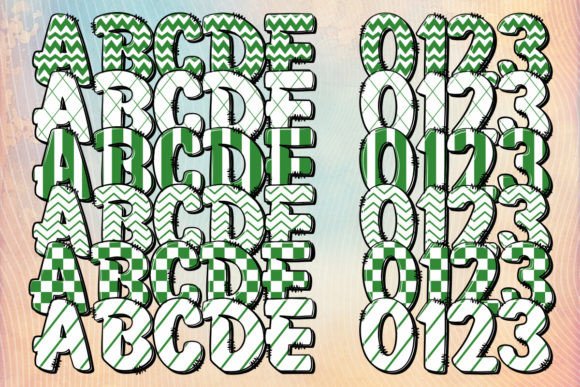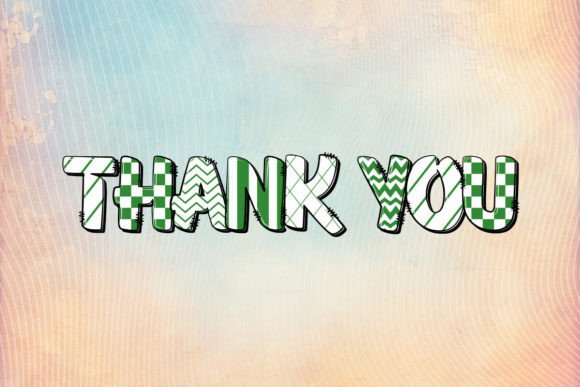
Deck the Halls with the Christmas Font Bundle: A Designer’s Dream Come True
It’s the most wonderful time of the year, and what better way to get into the holiday spirit than with a special Christmas font bundle? Introducing the six-pack collection of Christmas Bundle Color Fonts, a must-have for seasonal celebrations. This fantastic bundle is designed to unleash a festive flair on your t-shirts, mugs, digital graphics, crafts, and greeting cards, infusing your projects with the warmth and joy of Christmas.
What to Expect from the Christmas Font Bundle
This distinctive array includes six dynamic OTF Color Fonts, each exuding its unique character. The bundle is carefully crafted to provide designers and crafters with a wide range of options to make their creations truly special. Whether you’re looking to add a touch of elegance or a dash of playfulness to your designs, this Christmas font bundle has got you covered.
With the Christmas font bundle, the possibilities are endless. You can use these decorative Christmas fonts to transform your designs into timeless pieces that encapsulate the holiday spirit. Imagine being able to create stunning t-shirts, mugs, and greeting cards that will leave a lasting impression on your audience. The festive and fun vibe of these fonts is sure to captivate your audience and make your designs stand out from the crowd.
Why You’ll Love the Christmas Font Bundle
So, what makes this Christmas font bundle a must-have for designers and crafters? Here are just a few reasons:
- Unique and Festive Designs: Each font in the bundle has its own unique character, ensuring that your designs will stand out from the crowd.
- Versatile: The bundle includes both black and color versions of the fonts, making them suitable for a wide range of projects.
Tips for Using the Christmas Font Bundle
Here are a few tips for getting the most out of the Christmas font bundle:
- Experiment with Different Fonts: Try out different fonts in the bundle to find the one that works best for your project.
- Mix and Match: Combine different fonts and colors to create unique and eye-catching designs.
- Use with Other Holiday Graphics: Use the fonts with other holiday graphics, such as images and illustrations, to create stunning designs.